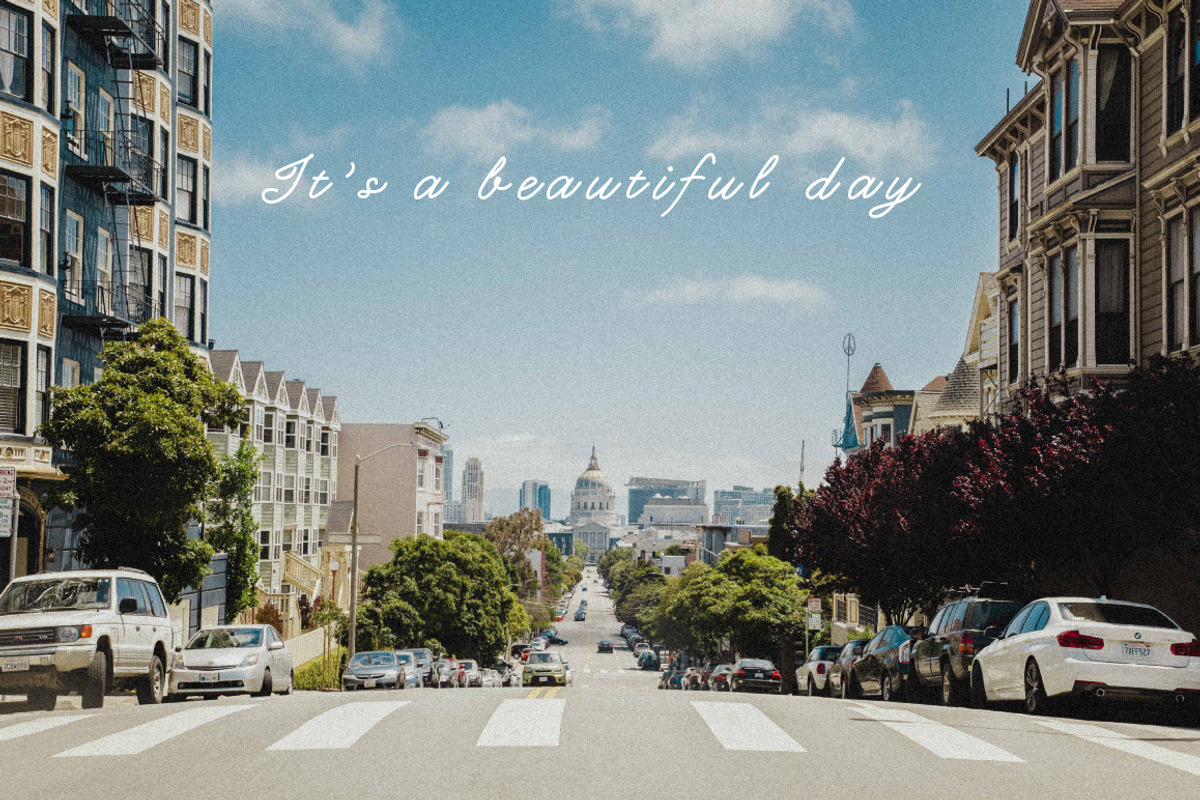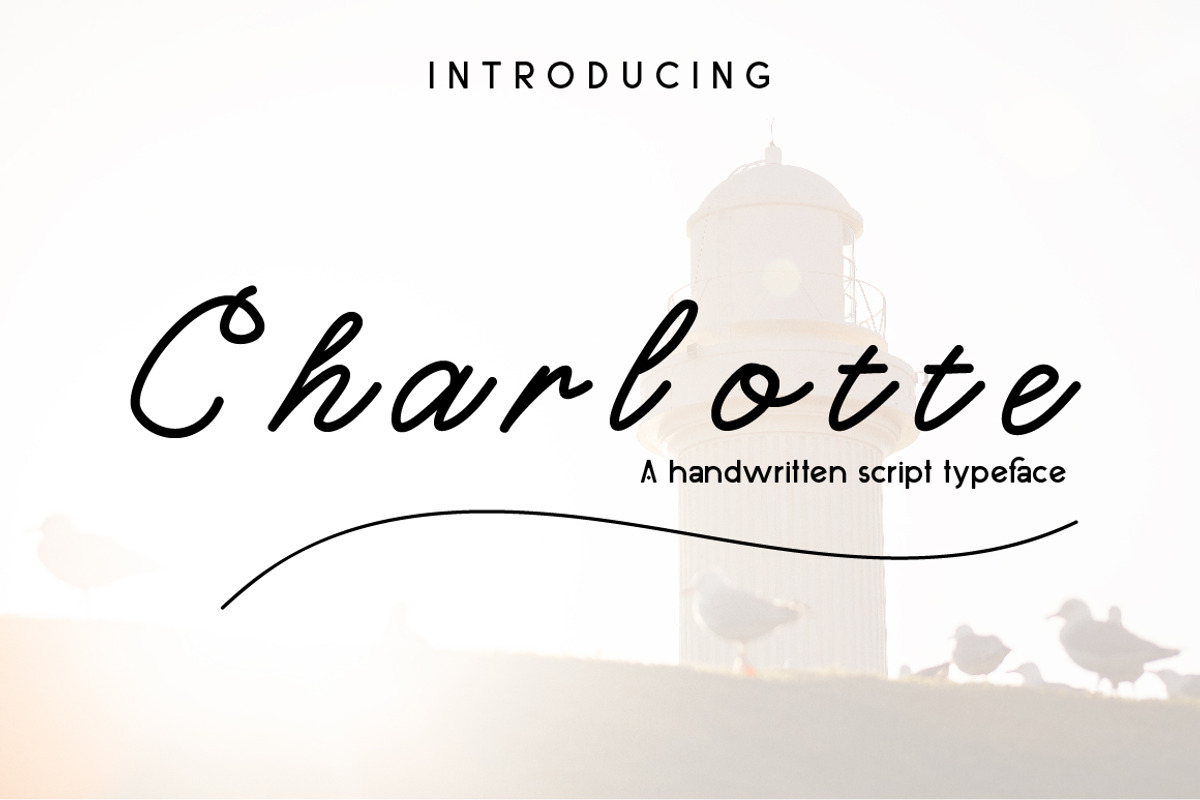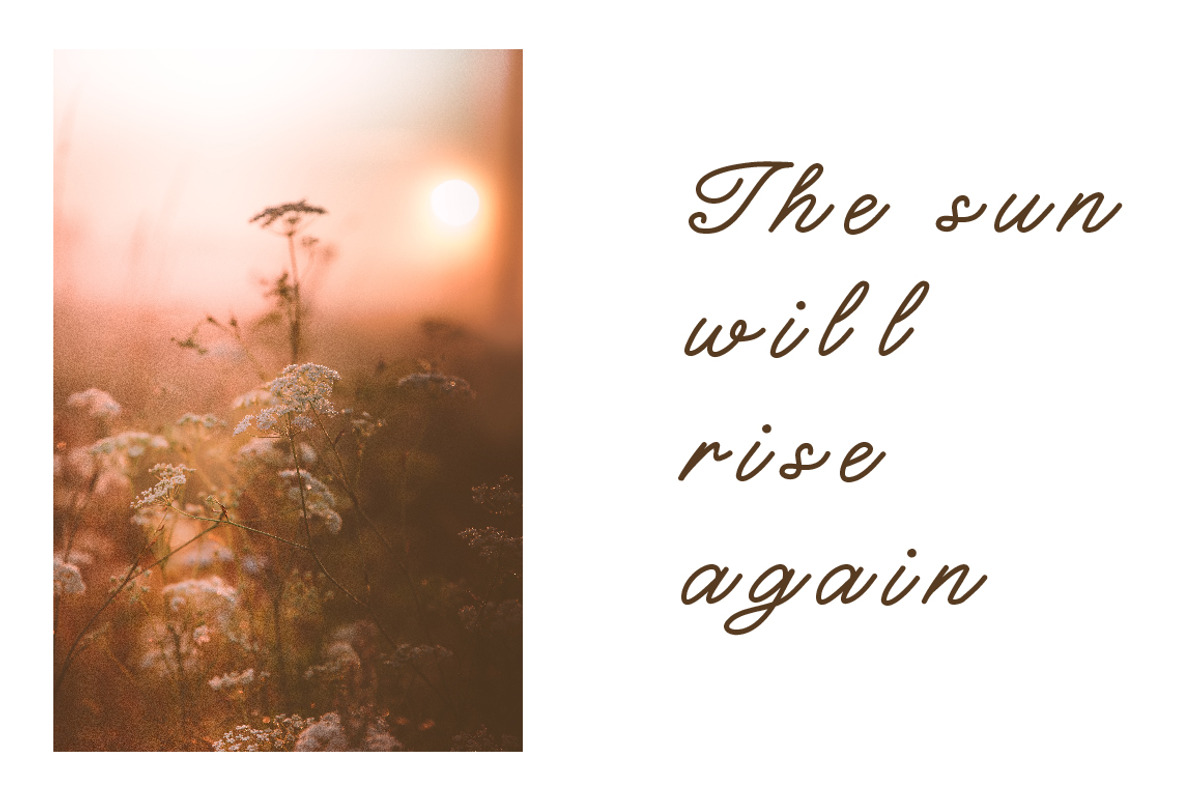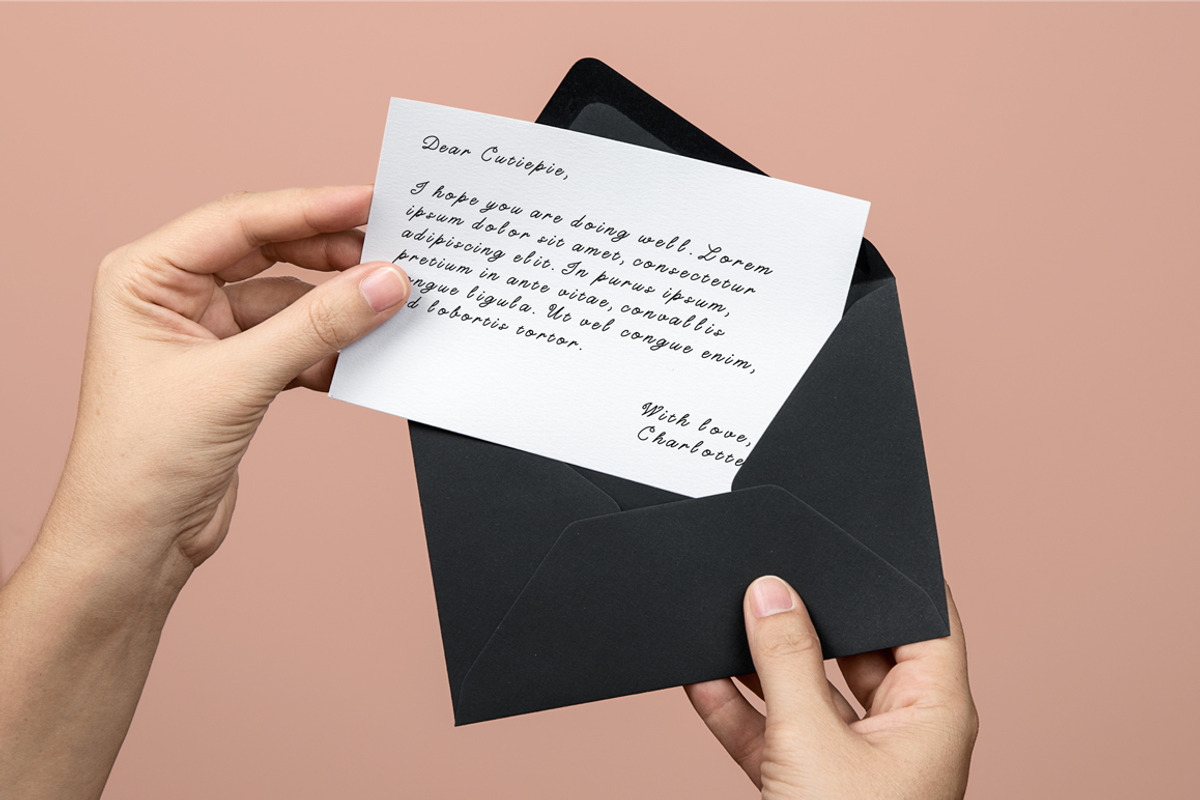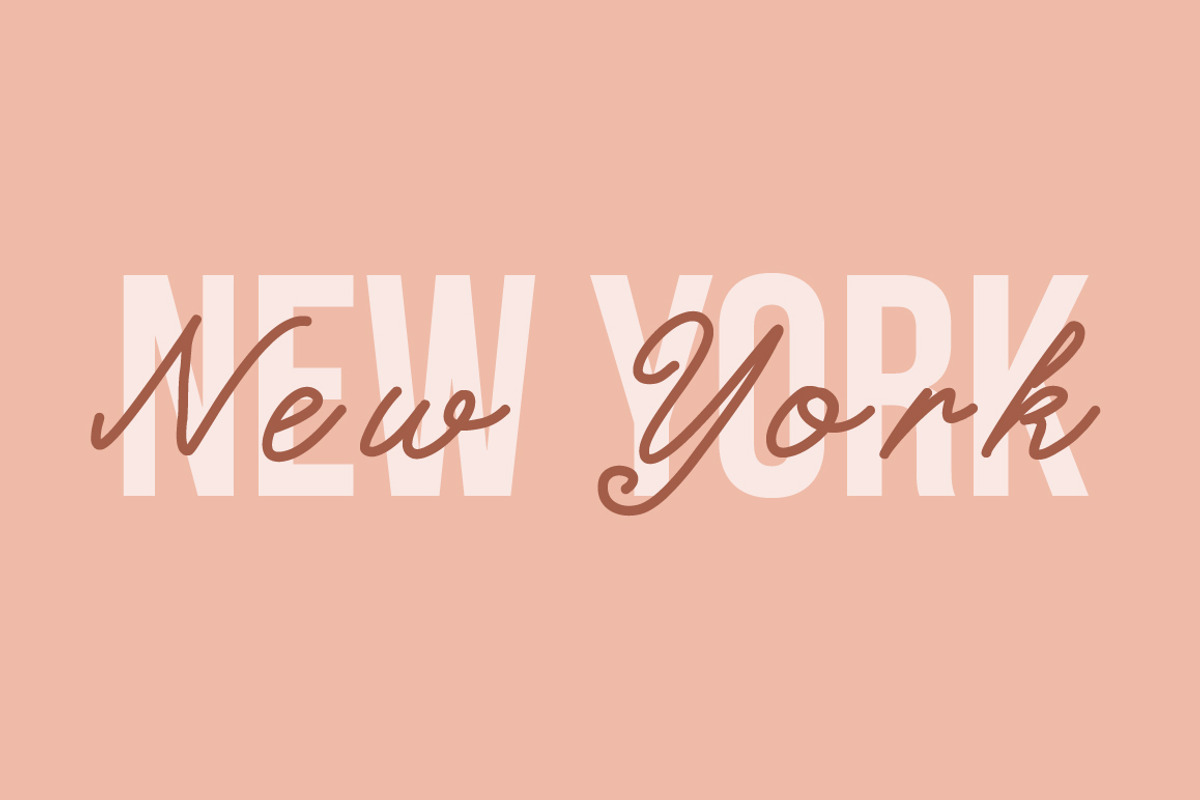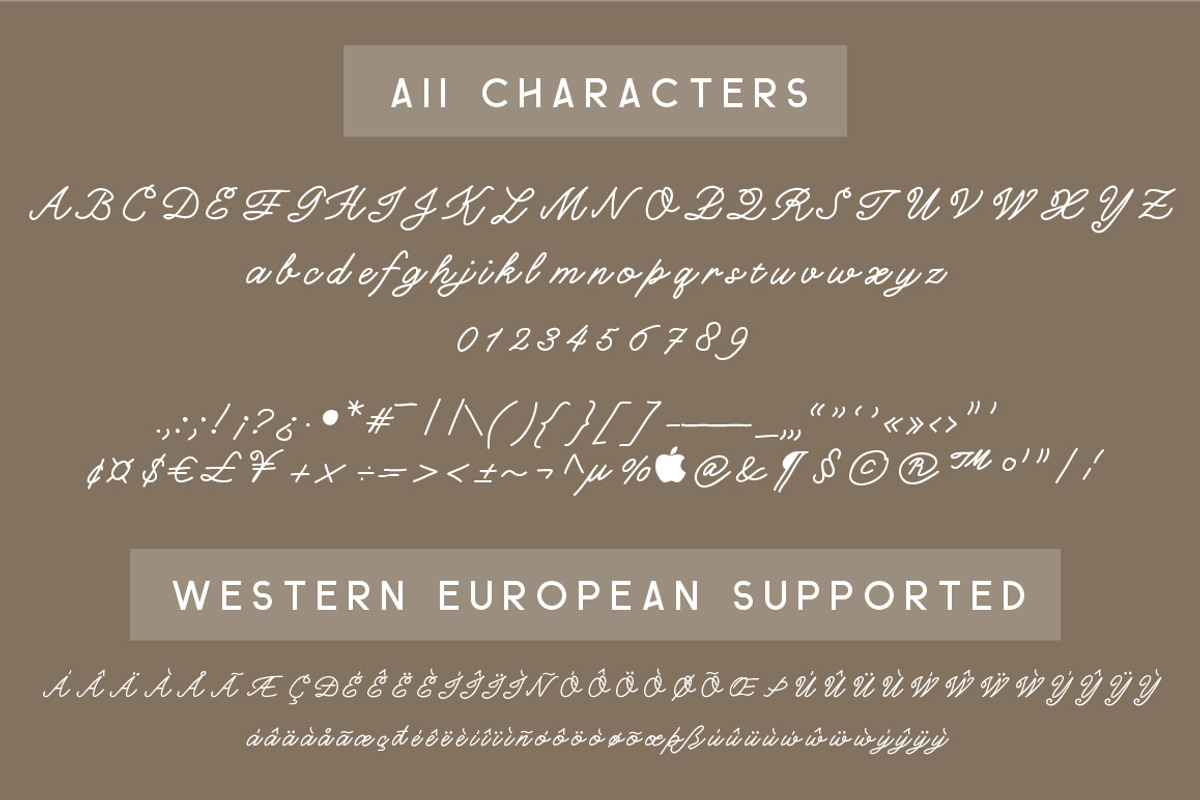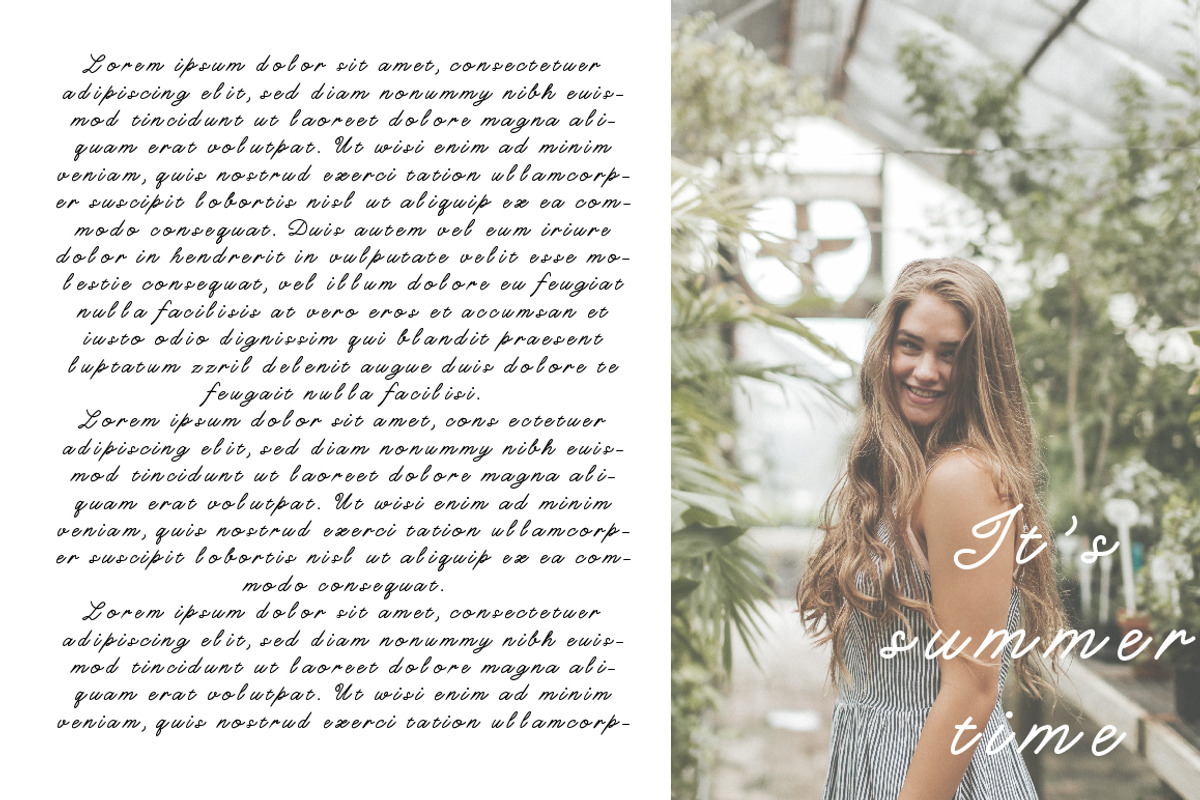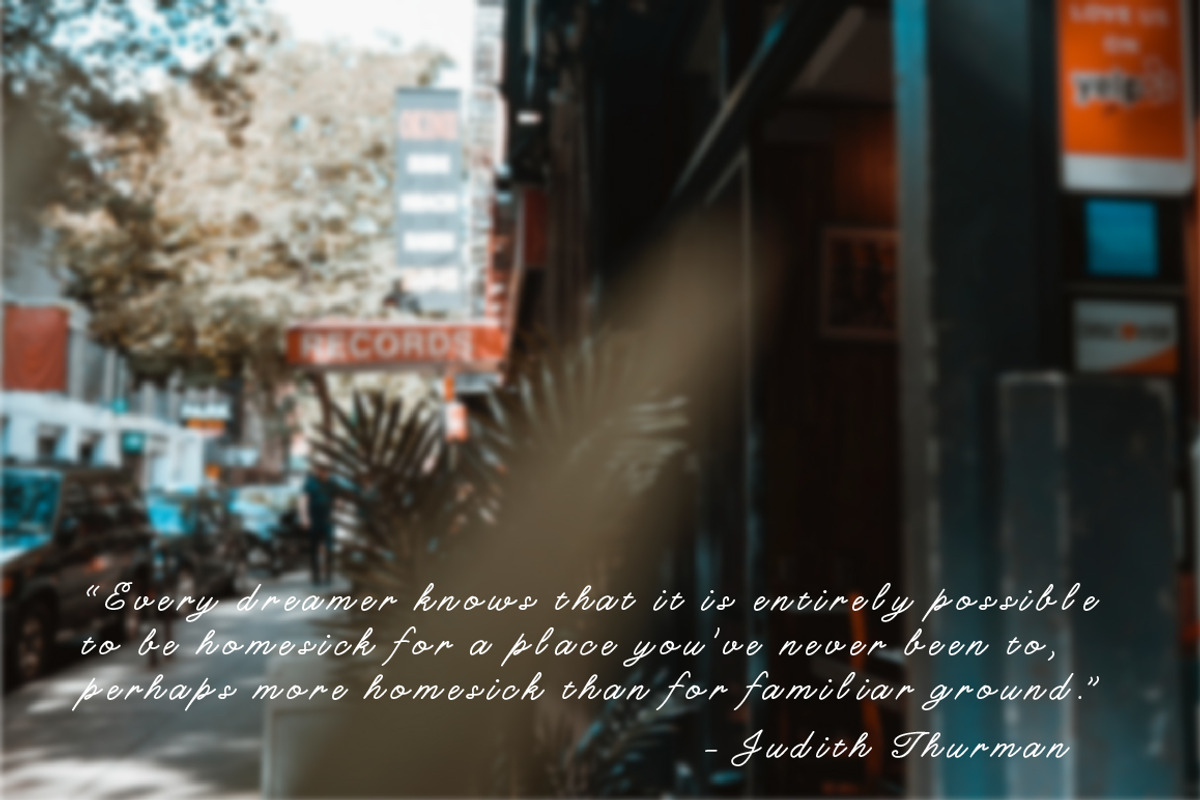
Charlotte Script Typeface
I would like to introduce Charlotte, the handwriting script typeface
Charlotte is a slant handwriting script typeface with mono weight stoke, giving off a girly vibe, informal and vintage look. It can be used as a cute minimal-style header display or as a stylish text for magazine, blog, branding, packaging, wedding invitation project, etc.
Standard English(A-Z, a-z)
Western European supported
numbers(0-9) & punctuations